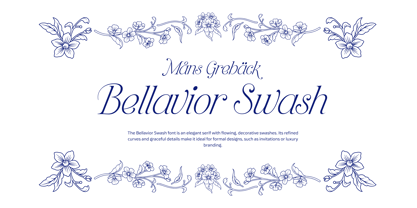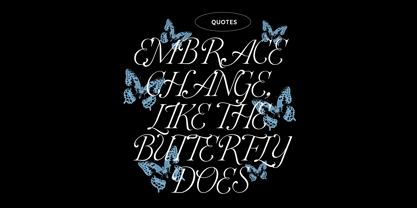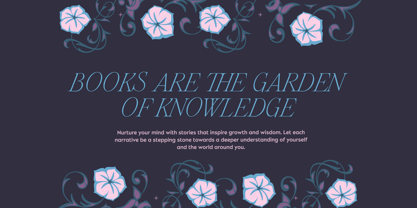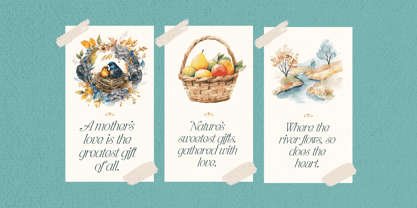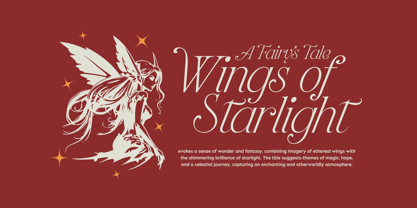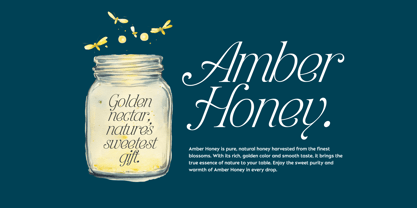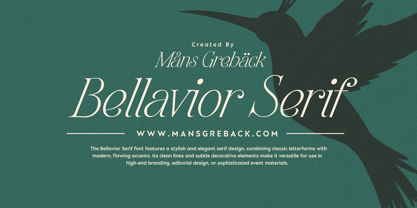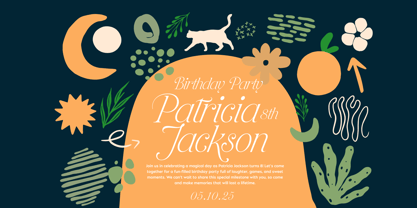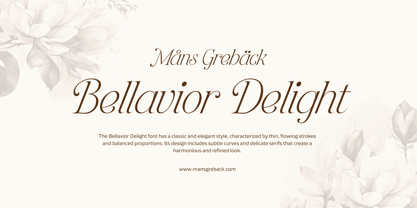
Bellavoir Delight
Bellavoir Delight is an elegant serif font family with a touch of sophistication. It’s a classic that has been redrawn to perfection, bringing a slightly modern feel to an otherwise timeless expression.
The family includes three distinct variants. Bellavoir Serif with its simple, lean, and crisp look; Bellavoir Delight, a more ornate and decorative version; and Bellavoir Swash which features more generous curves and flourishes. All the fonts share the same design structure, so that they seamlessly can be mixed and matched, depending on the kind of atmosphere you are going for. The fonts would work wonders on book covers, magazines, wedding invitations or labels for wines and other premium goods.
The font is built with advanced OpenType functionality and guaranteed top-notch quality, containing stylistic and contextual alternates, ligatures and more automatic and manual features; all to give you full control and customizability.
It has extensive lingual support, covering all Latin-based languages, from North Europa to South Africa, from America to South-East Asia. It contains all characters and symbols you'll ever need, including all punctuation and numbers.
The Bellavoir family is created by Mans Greback.